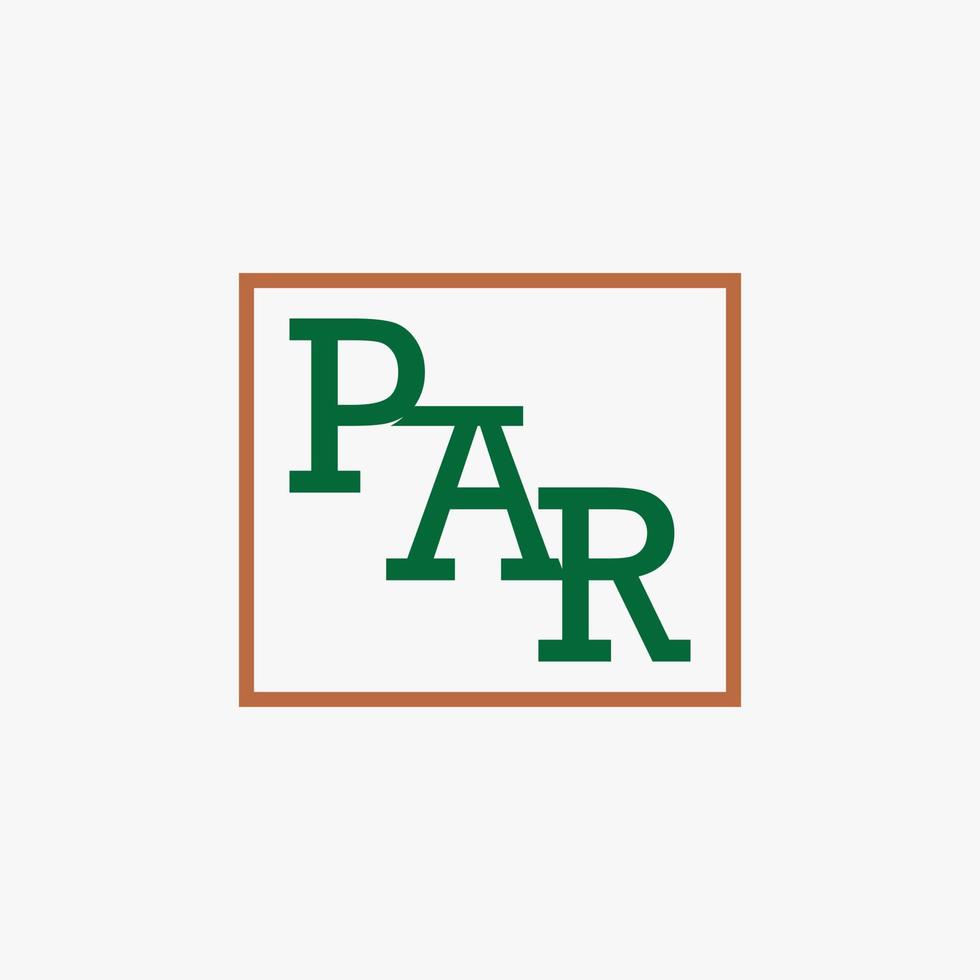
Simple and unique letter or word PAR font in creative connect top to down image graphic icon logo design abstract concept vector stock. Can be used as symbol related to typography or monogram Pro Vector